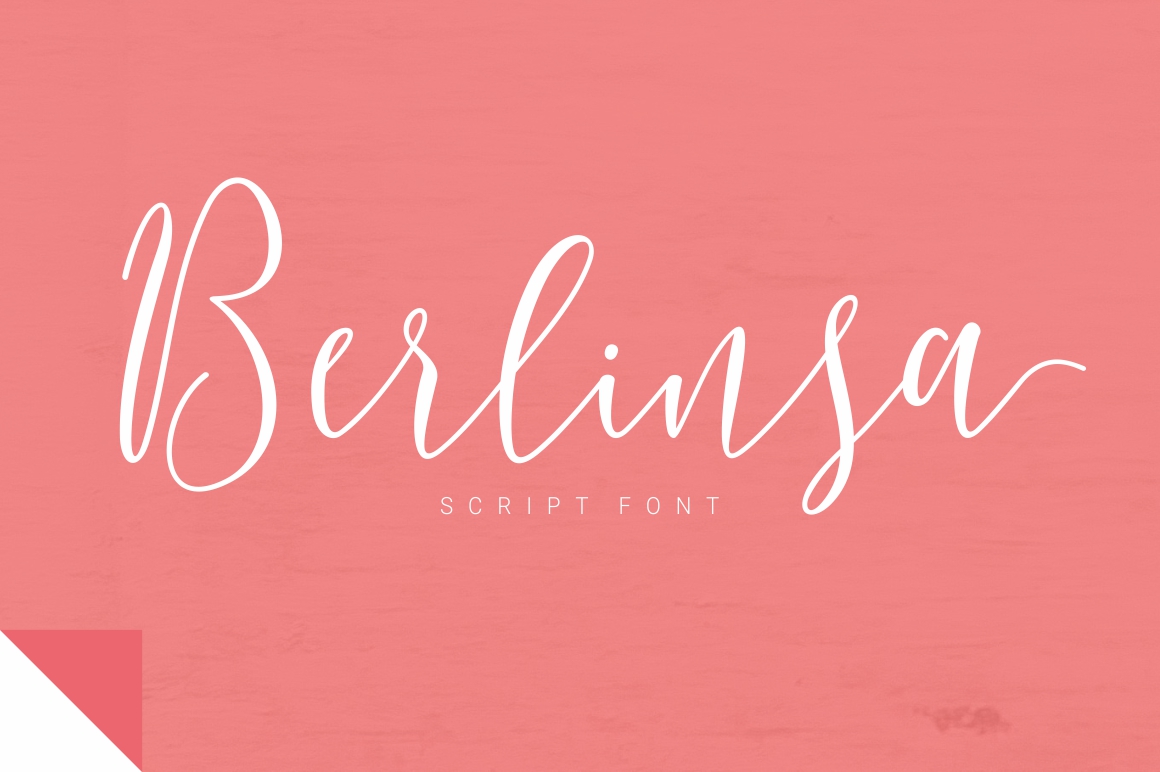
The Hunt for the Perfect Font: How Berlinsa Script Stole My Heart
I’ll never forget the frustration of scrolling through font after font, searching for the perfect one to bring my design project to life. My client wanted a modern, handwritten look that exuded elegance and sophistication. I spent hours browsing through font libraries, but nothing seemed quite right. That was until I stumbled upon Berlinsa Script. This beautiful, modern handwritten script has been a game-changer for my design work, and I’m excited to share my experience with you.
An Honest Review of Berlinsa Script
- ✨ Smooth and elegant character set
- 💫 Beautifully crafted to give a luxurious feel to any design project
- 🎨 Versatile and adaptable to various design styles
While Berlinsa Script is an amazing font, there are a few things to keep in mind:
- ⚠️ Some users may find the font a bit too slender for certain design applications
- 🤔 Limited availability of bold or heavy weights, which may limit its use in certain contexts
The Backstory of Berlinsa Script
Berlinsa Script was designed by a talented type designer who wanted to create a modern, handwritten script that would be perfect for a variety of design applications. The font was inspired by the beauty of handwritten lettering and the elegance of modern typography. The designer spent countless hours perfecting the character set, ensuring that each letter was crafted with precision and care.
Q: What is Berlinsa Script?
A: Berlinsa Script is a modern handwritten script font that’s perfect for a variety of design applications, including branding, packaging, and digital design.
Q: Is Berlinsa Script suitable for body text?
A: While Berlinsa Script is highly legible, it’s best suited for headlines, titles, and short paragraphs. For longer body text, a more traditional serif font may be more suitable.
Q: Is Berlinsa Script available in multiple weights?
A: Berlinsa Script is available in a range of weights, including regular, bold, and italic. However, the font may not have as many weights as some other fonts, which can limit its use in certain contexts.